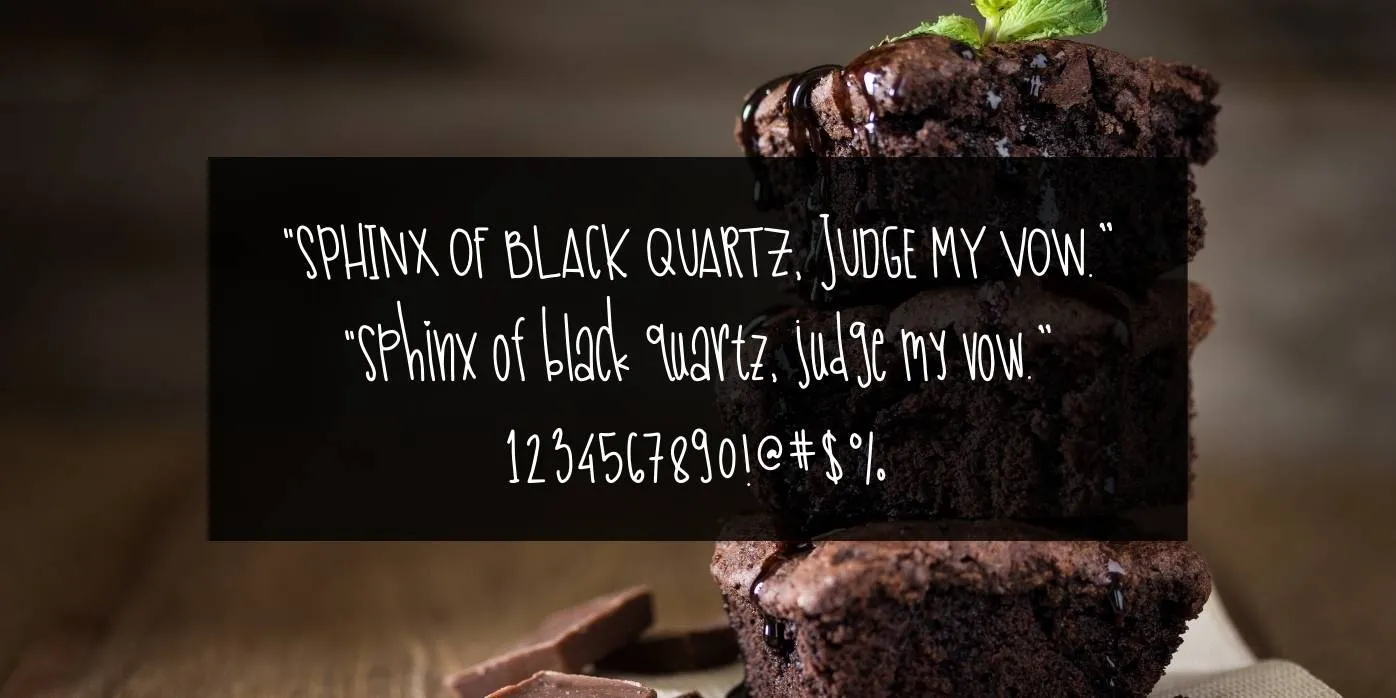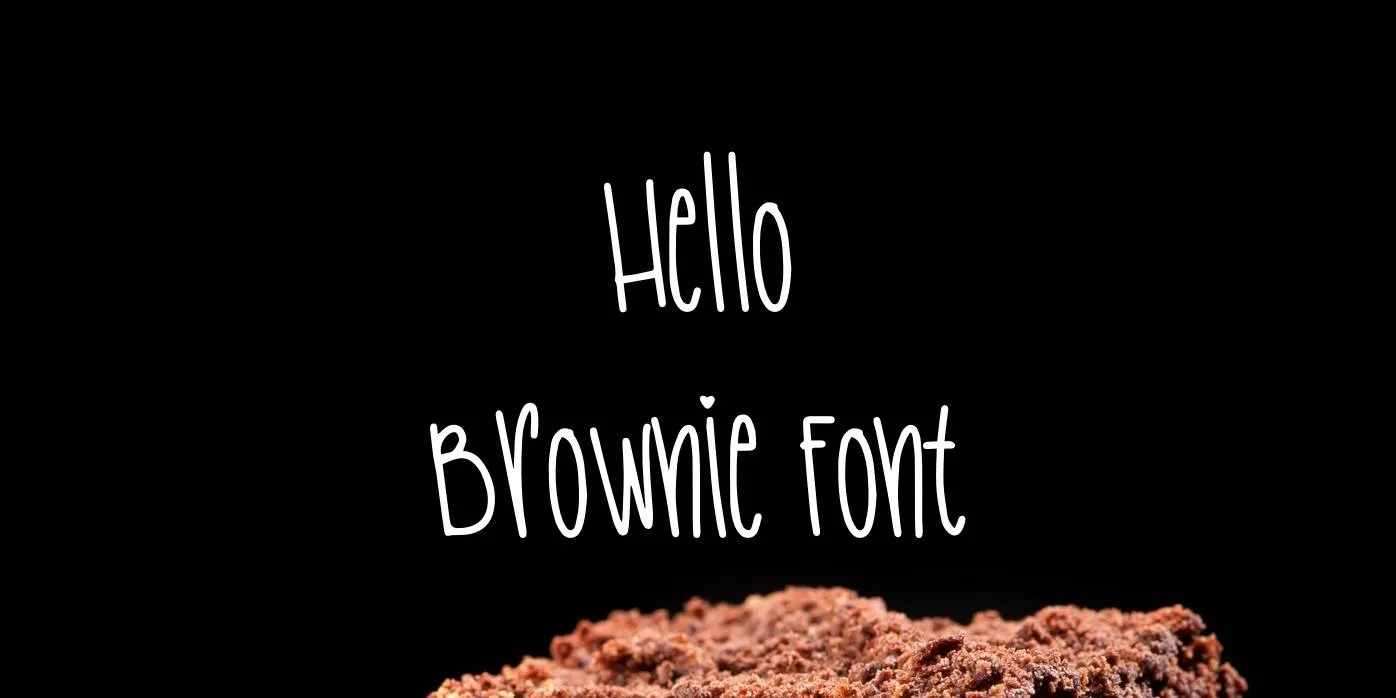
Hello Brownie Font
Hello Brownie Font is a famous script typeface. This staggering typeface was designed by The Ocean Studio. This tremendous font has been downloaded over 100,000 times. It is well specified for the CSS.
This widely used typeface is perfect for those who are looking for a script font with a natural and unique touch. This outstanding font supports a wide range of languages including Latin, Cyrillic, and Greek.¬† Its copy and paste function is very classic. You can use good vibes font which has the same style and characters as this one. If you’re in search of a versatile typeface that can be used for both corporate and personal projects, then look no further than the Hello Brownie Typeface.